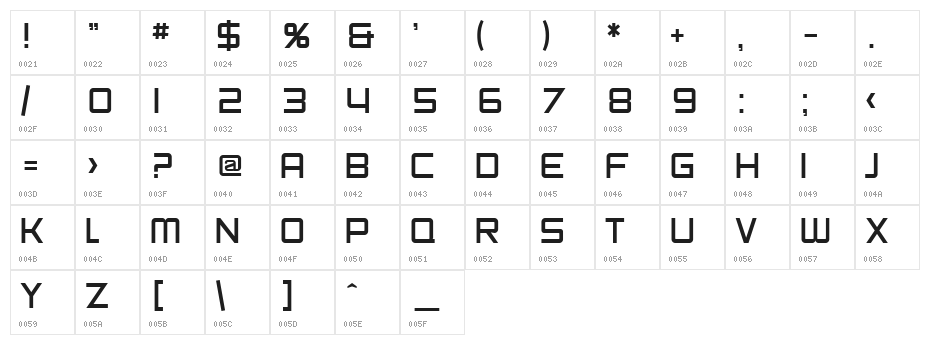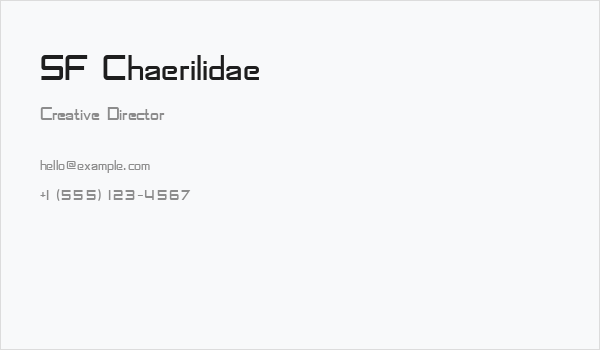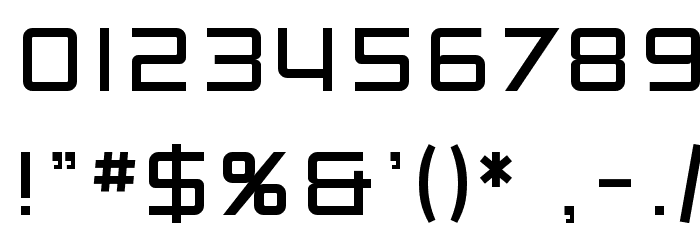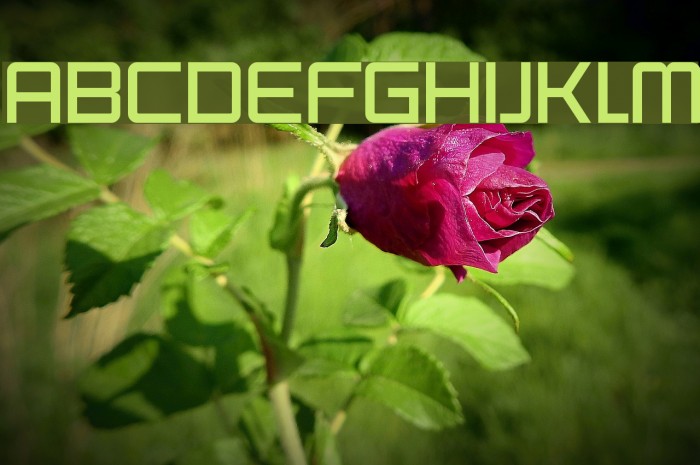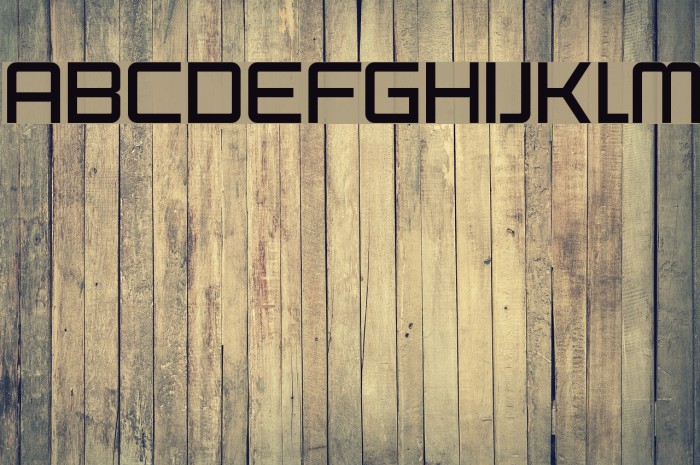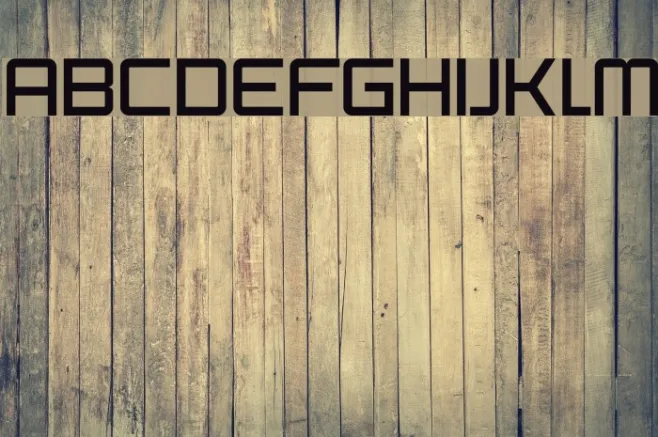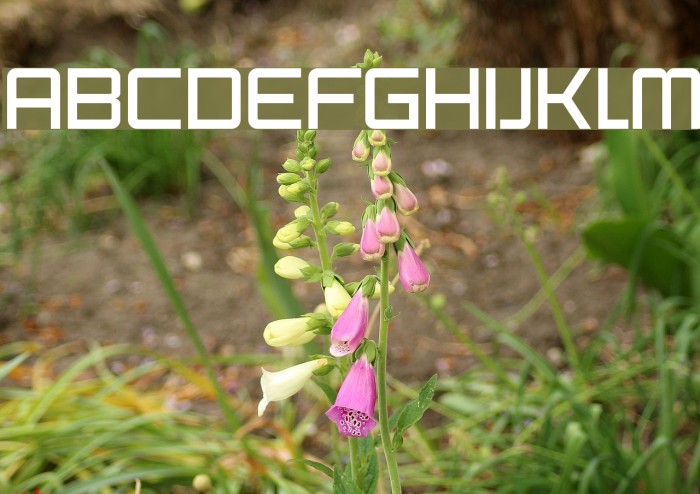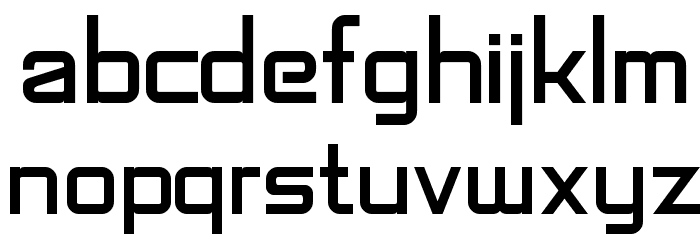
SF Chaerilidae Font
SF Chaerilidae Description
This font features a modern and geometric design, characterized by clean lines and a structured appearance. The uppercase letters are bold and uniform, with a slight squaring of the curves that gives them a futuristic feel. The lowercase letters maintain a consistent height and width, contributing to a balanced and cohesive look. Numbers are designed with the same geometric precision, ensuring readability and visual harmony. Special characters are crafted to match the overall aesthetic, making them suitable for a variety of applications. The font's clarity and structure make it ideal for digital interfaces and contemporary branding projects.
| Use Case | Headlines, Logos, Digital Interfaces |
| Proposed Projects | Ideal for digital interfaces, modern branding, tech-related projects, and contemporary advertising. |